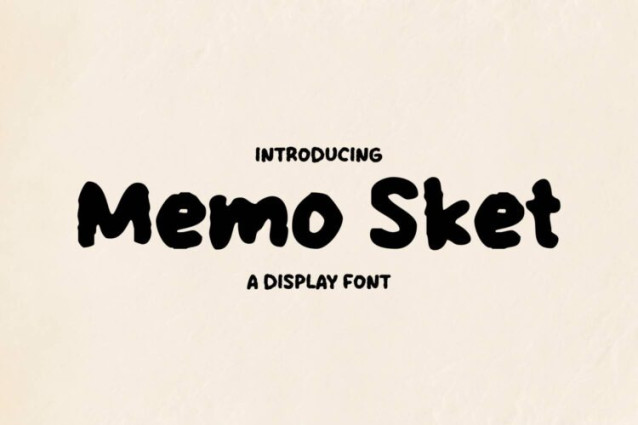
Memo Sket Font
Memo Sket Font is a chunky, comic, and cartoon display font. With its neat and joyful personality, this font will enhance any project you wish to create!